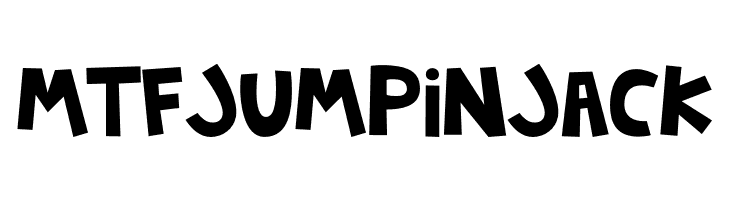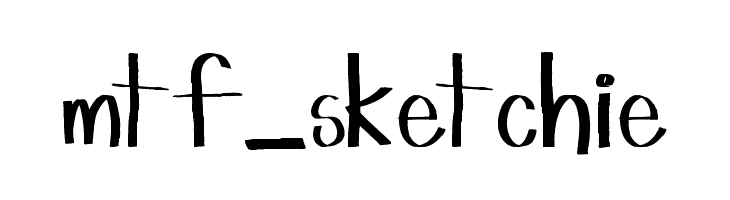
A playful, handwritten font with a whimsical and casual style.
A playful, bold handwritten font with rounded edges and consistent strokes.
A playful, bold outline font with a three-dimensional look.
A bold, outlined font with a playful, three-dimensional effect.
An ornate and decorative font with intricate swirls and flourishes.
Whimsical nature-themed dingbats with floral and weather motifs.
A playful, whimsical font with quirky, decorative letterforms.
A playful and whimsical font with exaggerated curves and a hand-drawn appearance.
A whimsical font with floral embellishments and delicate curves.
A playful, handwritten font with a casual and friendly style.